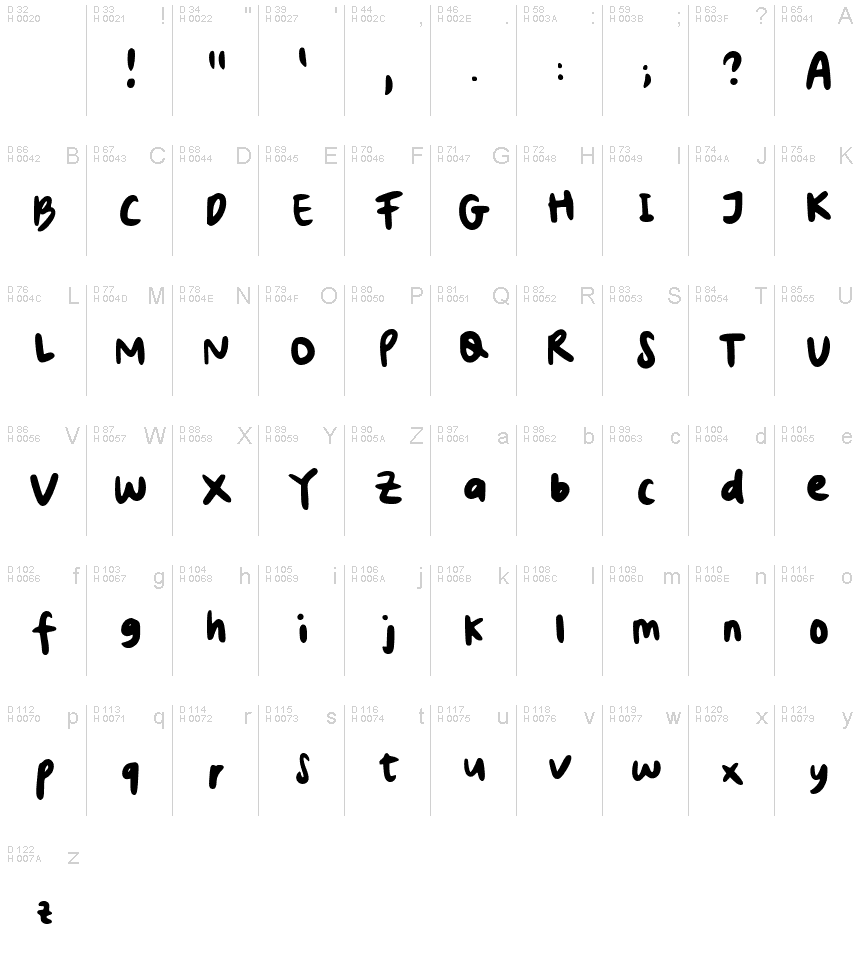
Cutie Pie Bold Regular
Cece's Cutie Pie Bold is a handwritten, bold font perfect for making a statement. It's ideal for creating eye-catching logos, titles, posters and more! Give your projects an extra touch of personality with this unique font.